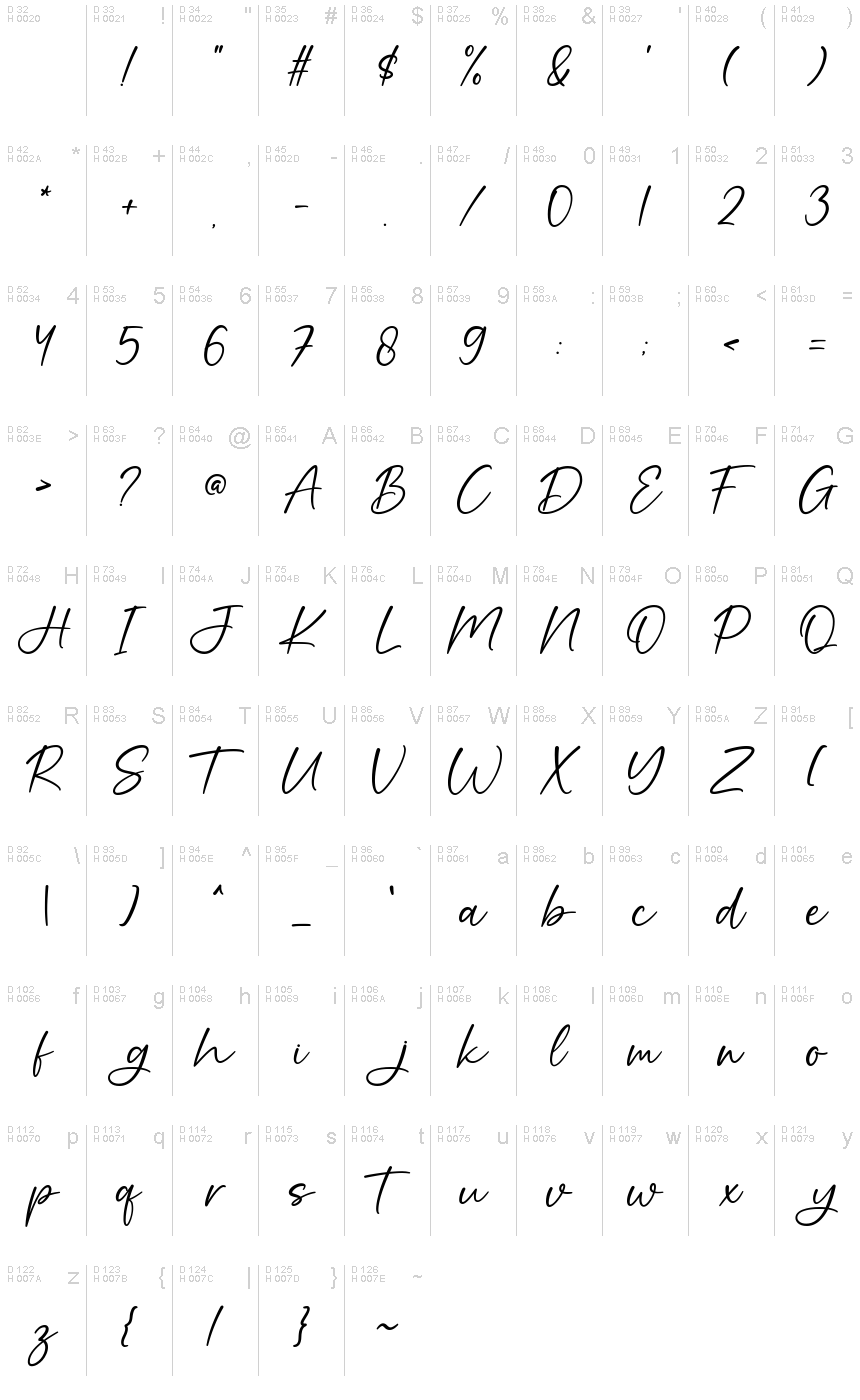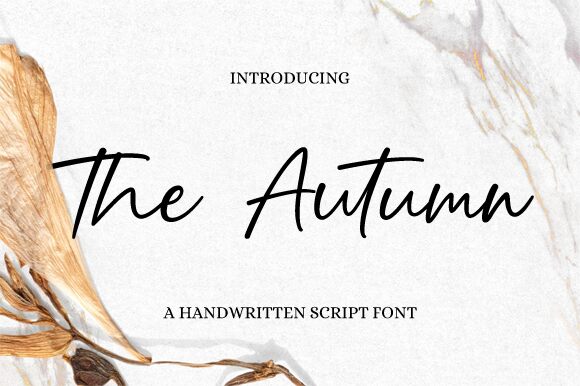
The Autumn
The Autumn, a creation of Graphix Line Studio, presents a handwritten font that exudes an organic and personal touch. Its elegant and fluid strokes convey warmth and approachability, making it an ideal choice for projects that require a sense of intimacy and handcrafted charm.
The light font navigates the balance between casual and sophisticated, granting it versatility across various mediums such as branding, product packaging, and wedding invitations. This font casts a welcoming vibe that can elevate boutique branding or add a signature flourish to personalized stationery, capturing the essence of bespoke design with every curve and line.